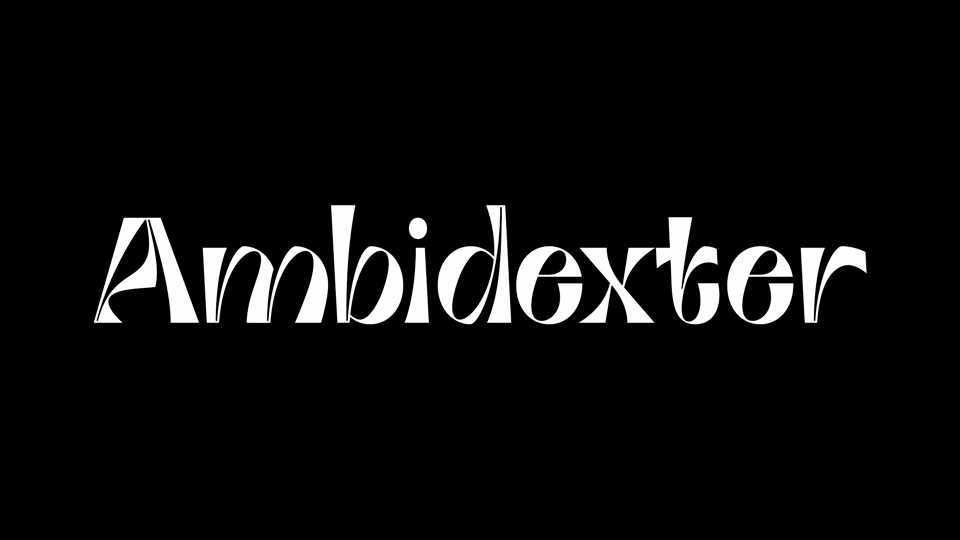
Download Ambidexter font, an experimental display italic typeface with two irregular tilt axes. Ambidexter is based on a broad-nib pen writing, which has gone beyond the plane into the tridimensional world.
Designer: Egor Belozerov